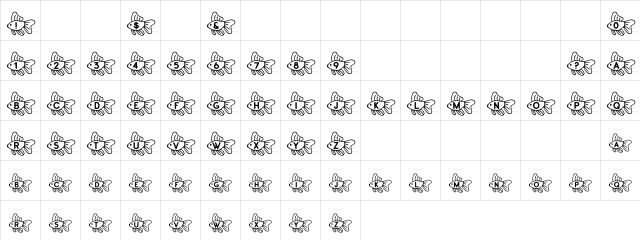
RMFish2 Regular Free Font
RMFish2 Regular
Design Context for RMFish2
RMFish2 is a composed and adaptable typeface that performs quietly and consistently across a wide range of design contexts.